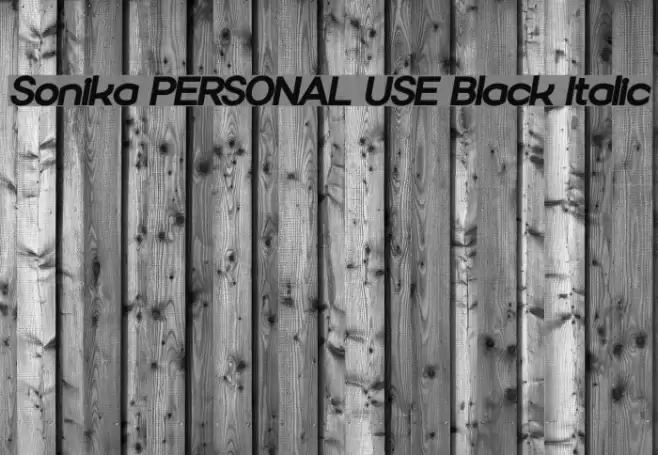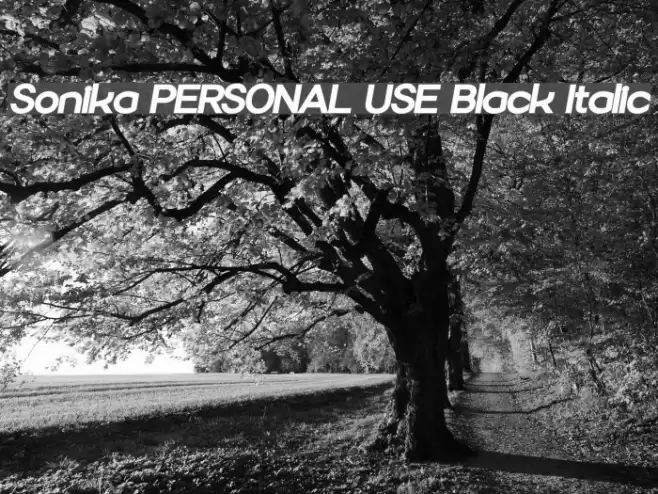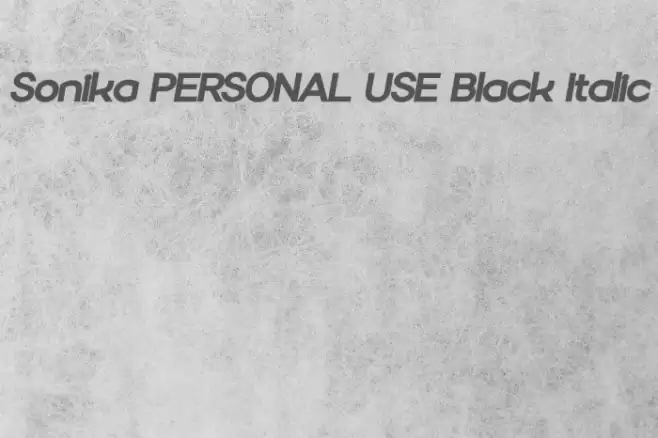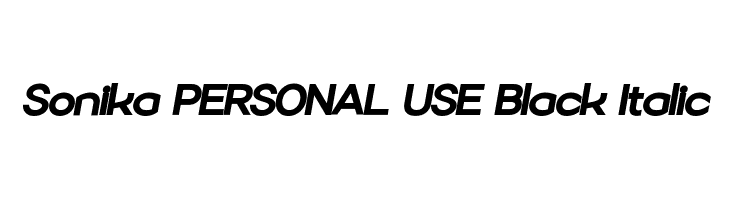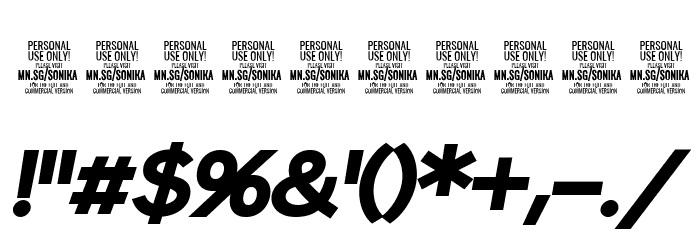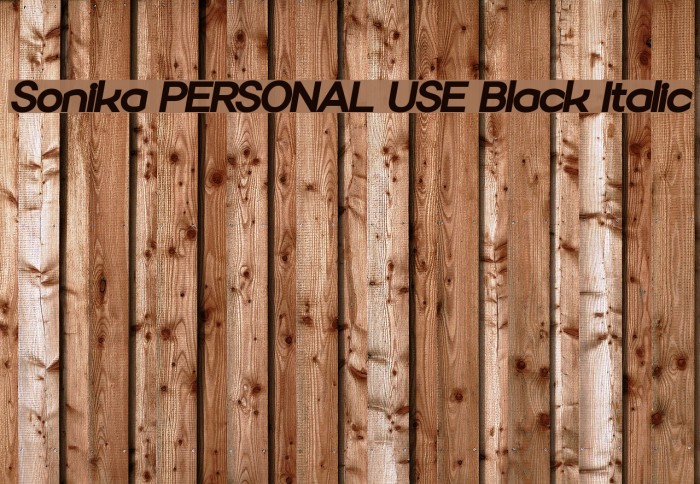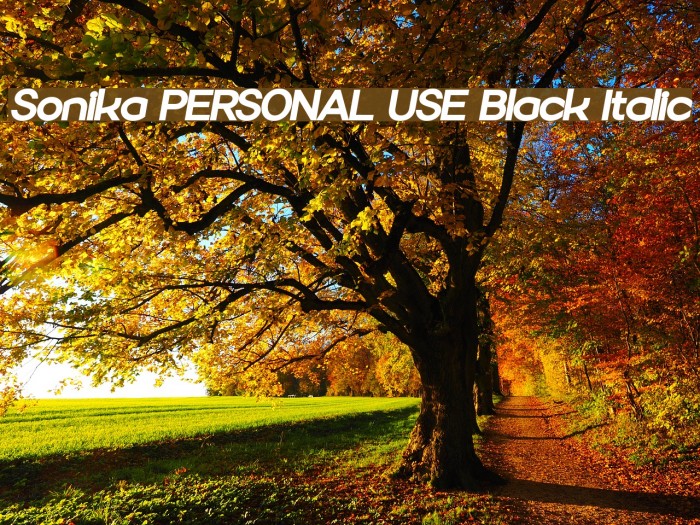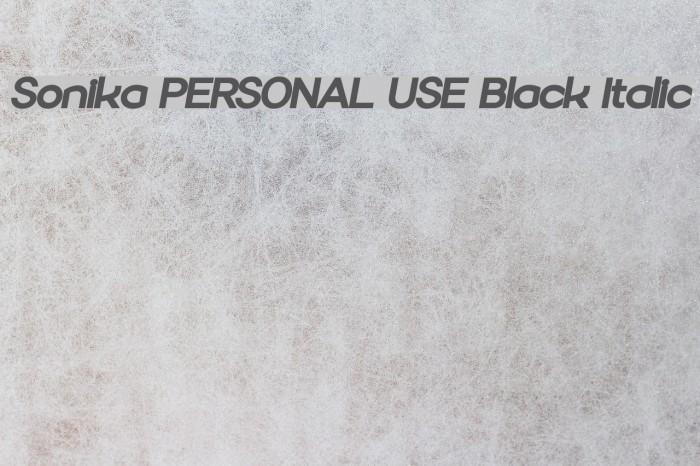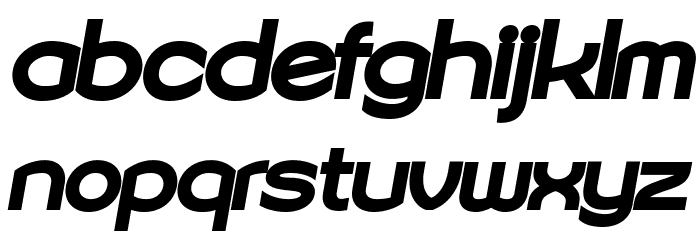
Sonika PERSONAL USE Black Italic Font
Sonika PERSONAL USE Black Italic Description
This font exhibits a bold and dynamic style with a strong italic slant, giving it a sense of motion and energy. The characters are wide and have a uniform stroke thickness, contributing to a modern and sleek appearance. The uppercase and lowercase letters are well-proportioned, maintaining readability while adding a distinctive flair. The numerals and special characters are consistent with the overall design, ensuring versatility across different uses. The font's boldness and italic nature make it suitable for impactful headlines and creative projects.
A bold, italic font with a modern and dynamic style from Uncategorized fonts.
- Proposed Projects: Ideal for branding, advertising, posters, and any project requiring a strong visual impact.